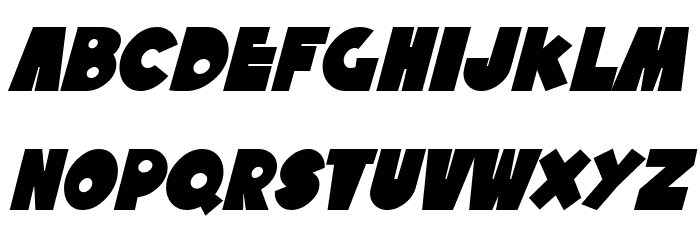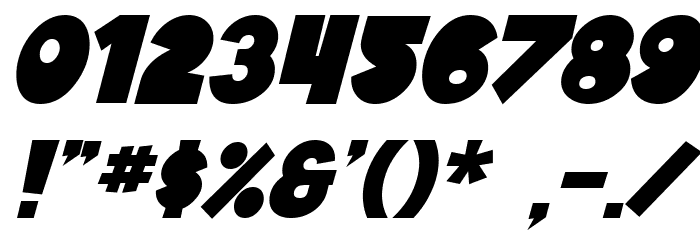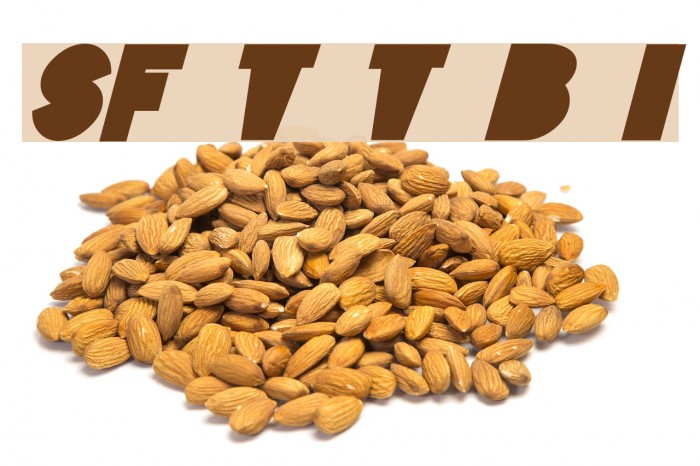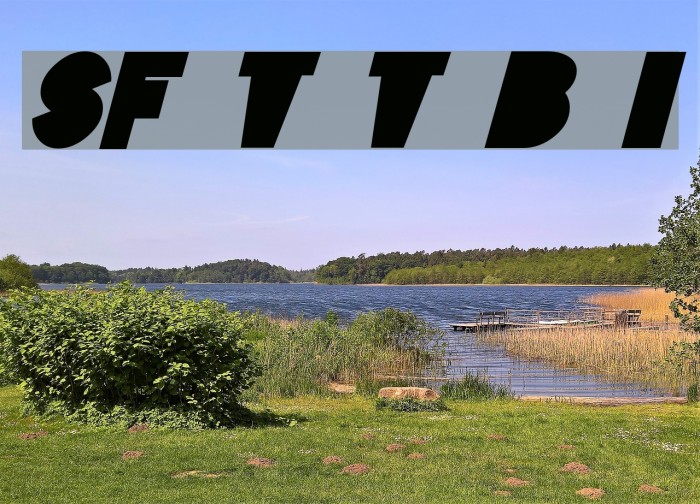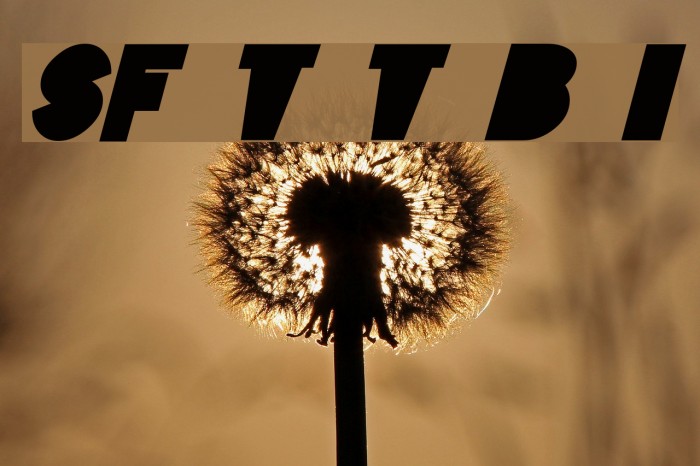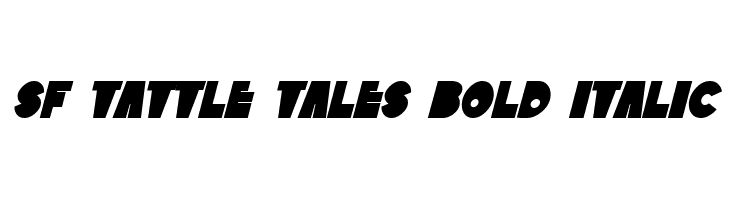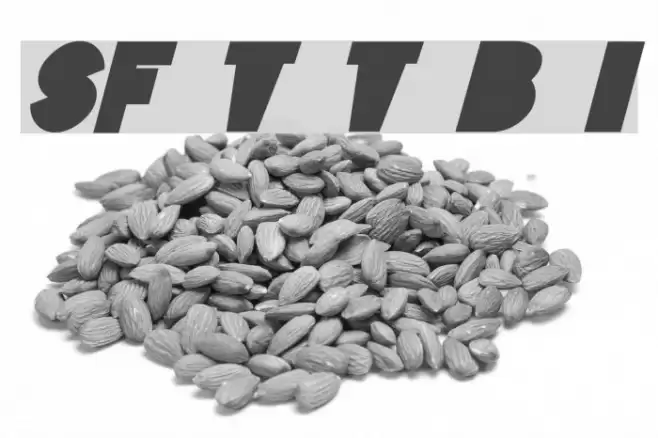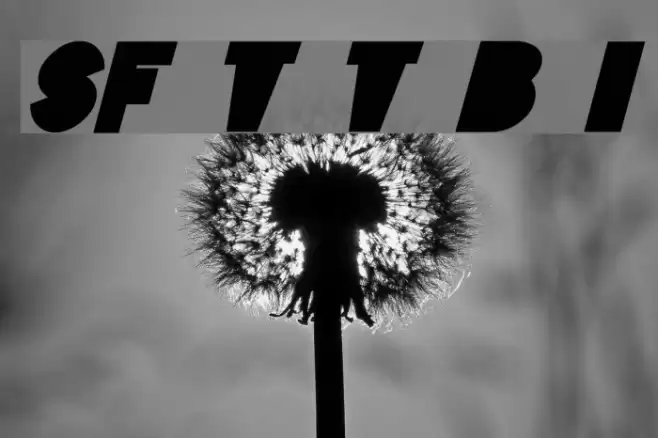
SF Tattle Tales Bold Italic Font
This bold and italicized font features a striking, angular design that commands attention. The characters are heavily weighted, with a strong presence that makes them ideal for impactful headlines or titles. The italic slant adds a dynamic feel, enhancing the sense of movement and energy. Each letter is crafted with sharp edges and a geometric style, giving the font a modern and edgy appearance. The numbers and special characters maintain the same boldness and angularity, ensuring consistency across all text elements. This font is perfect for projects that require a bold statement, such as posters, logos, or branding materials.
A bold, italicized font with angular, geometric characters for impactful designs.
- Proposed Projects: Ideal for posters, logos, branding materials, and any design needing a bold statement.